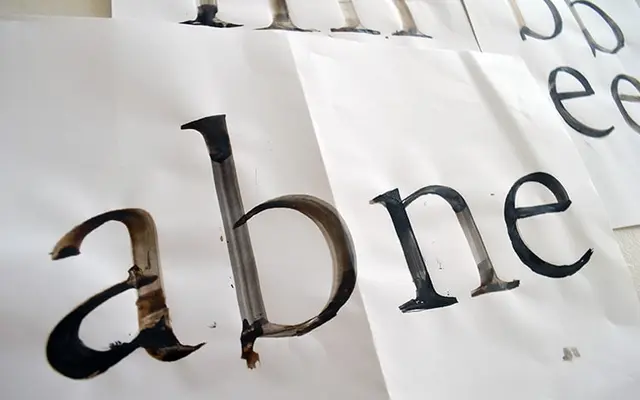
Foundry Old Style
The Foundry Types · David Quay · 1990
A humanist old style serif by David Quay, drawn initially with a broken clarinet reed and ink, tracing its lineage to the incunabula types of Nicolas Jenson.
Released in 1990 as The Foundry's debut typeface, it began as freehand calligraphy before being redrawn repeatedly onto detail and tracing paper, then digitised using Ikarus software. The pen stroke structure is present but more restrained than its early printing forebears, sitting closer to the Garamonds in refinement. A small family of four styles covering Normal, Normal Italic, Medium and Bold, intended for classical book work and positioned as a text companion to Foundry Sans.
Described explicitly as a transitional roman in the classical tradition, drawing on incunabula typefaces and the pen stroke influence of Nicolas Jenson, placing it firmly in the humanist old style serif lineage.